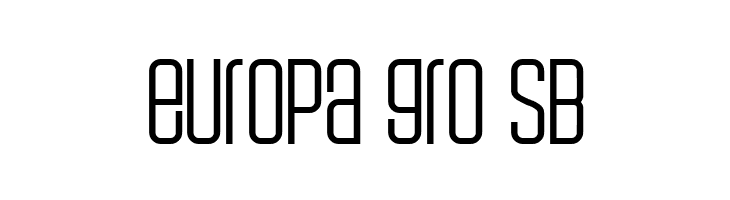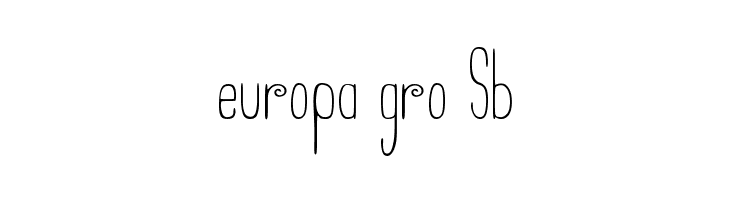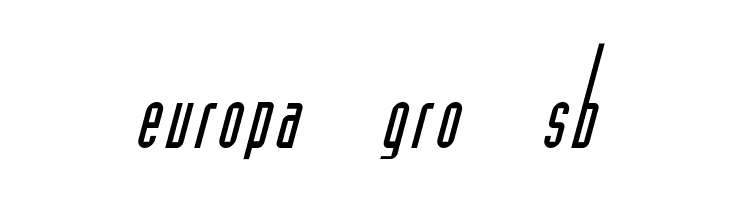
A tall, narrow, and slanted font with a modern and dynamic style.
( Fonts by Alan Carr )
A modern, geometric font with tall, narrow uppercase and rounded lowercase letters.
( Fonts by Matthew Welch - www.squaregear.net/fonts/ )
A playful, whimsical font with tall, narrow letterforms and irregular strokes.